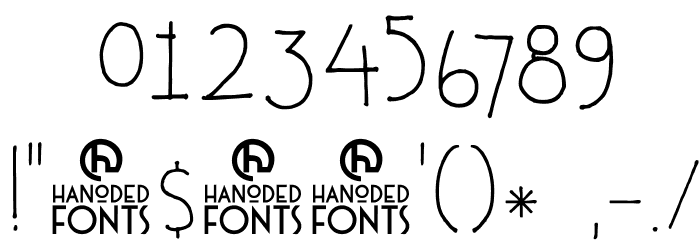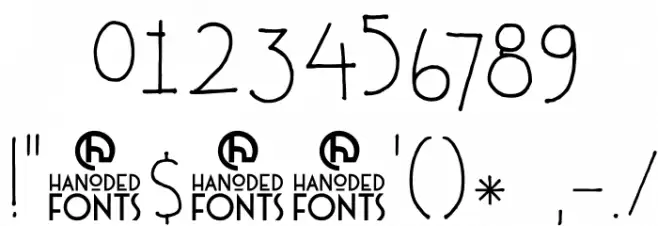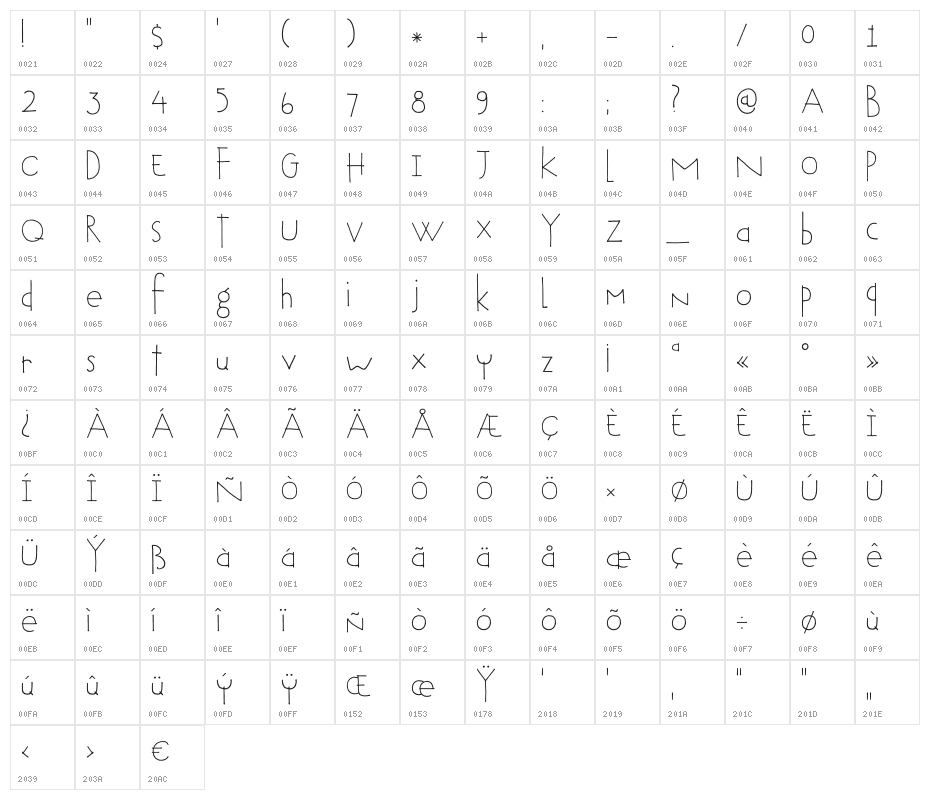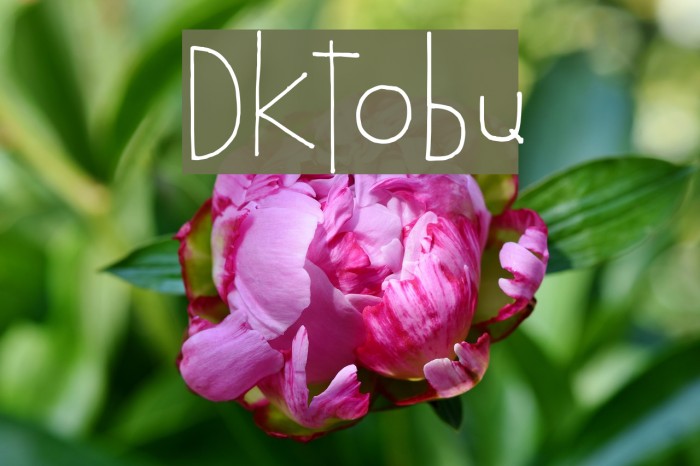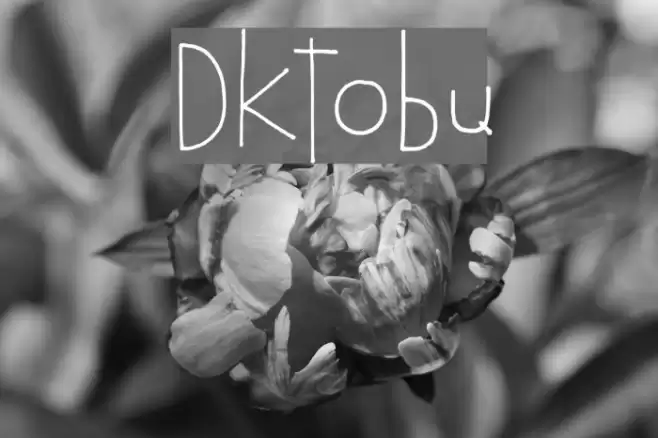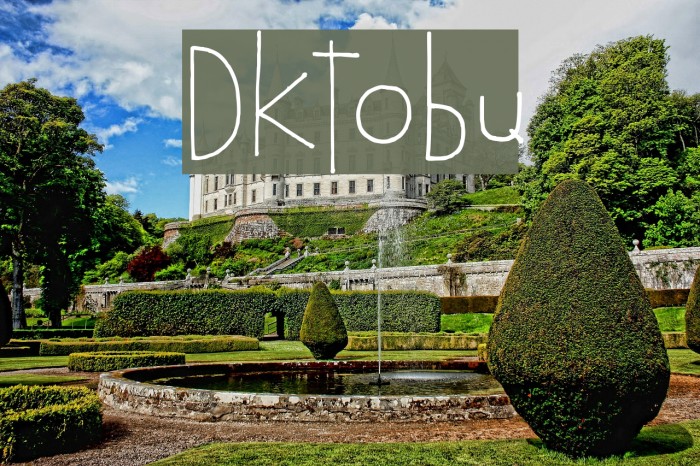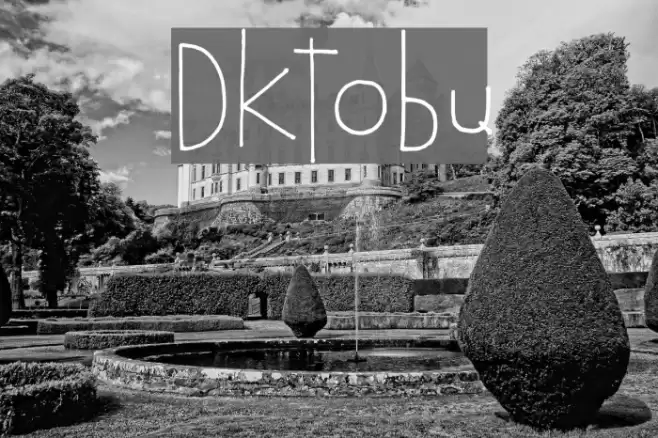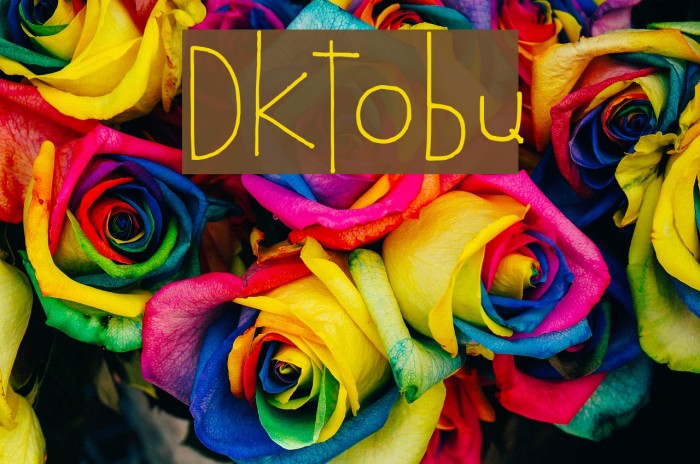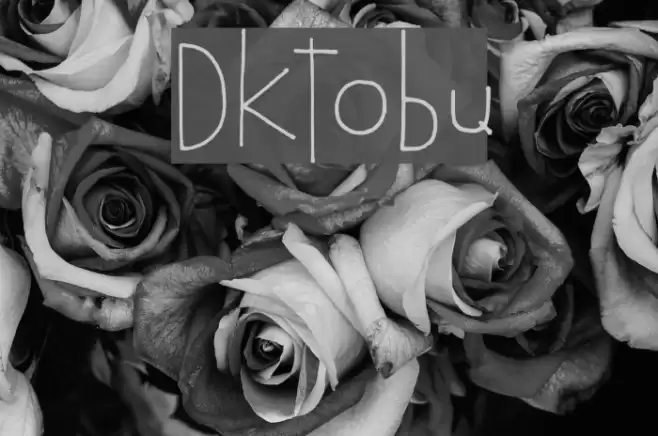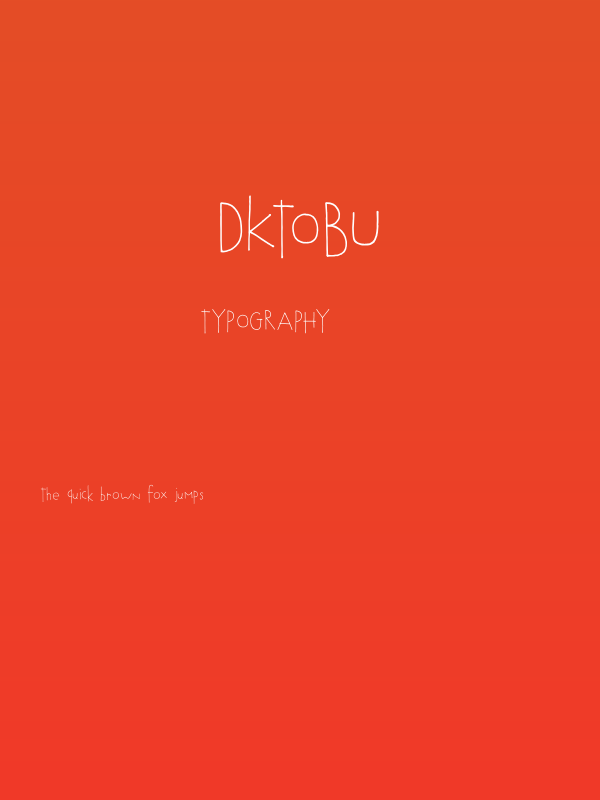
DKTobu Font
DKTobu Description
This font features a playful and whimsical style with a hand-drawn appearance. The characters are tall and narrow, with uneven strokes that give it a casual and informal look. The uppercase letters are slightly taller than the lowercase, and the numbers maintain the same quirky style. The special characters complement the overall aesthetic, adding to its charm. This font is perfect for projects that require a personal touch or a sense of creativity.
Use CaseHeadlines, Logos, Creative projects
Proposed ProjectsIdeal for children's books, creative posters, greeting cards, and playful branding.